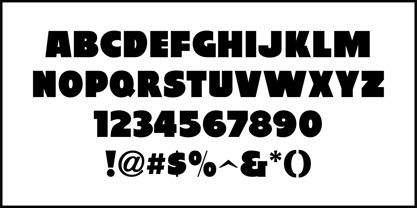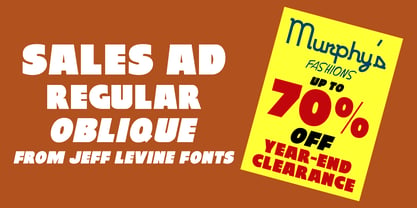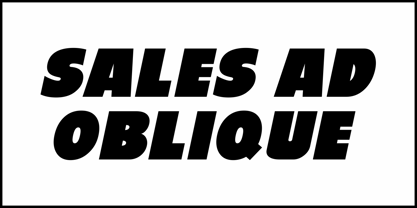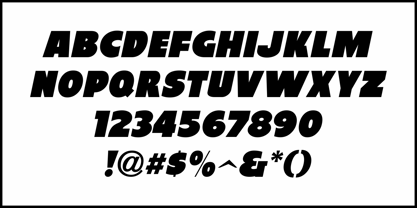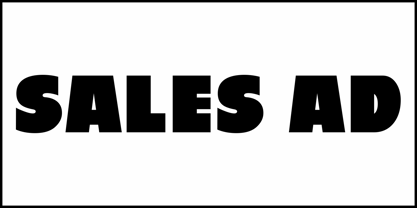
Sales Ad JNL
by Jeff Levine
Big, ultra bold "in-your-face" hand lettering for the film "Park Row" was used in an ad found within pages of the July 28, 1952 issue of Motion Picture Daily.
This typeface design packs a punch when it comes to delivering attention-getting headlines. It's now available digitally as Sales Ad JNL, in both regular and oblique versions.
Designers: Jeff Levine
Foundry: Jeff Levine